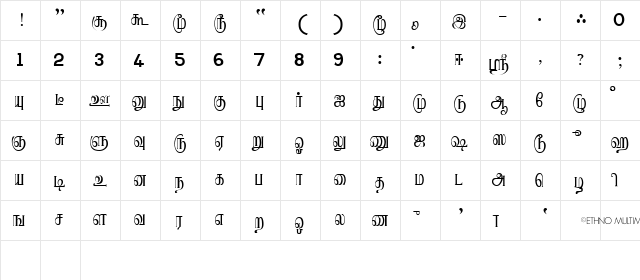
Ranjani Plain
Design Context for Ranjani Typeface
Ranjani is a composed and adaptable typeface that performs quietly and consistently across a wide range of design contexts.